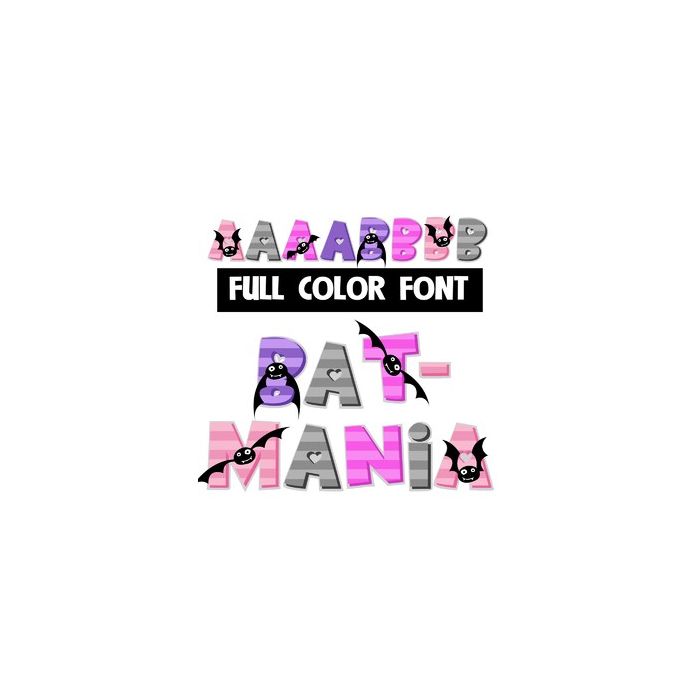
This full-color font features adorable bats on the uppercase and a lowercase without. There is a secondary alt case for both upper and lower that you can access through Silhouette's glyph map.